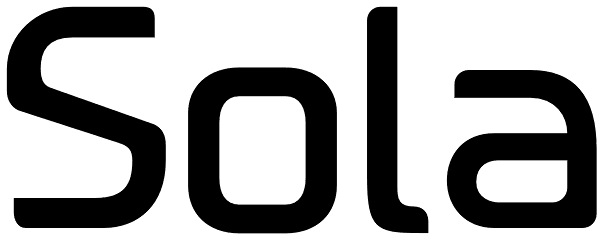
Sola
Sola is a simplistic, stylish, and modern san serif type font with the unique addition of rounded corners. When creating this font, Bank Gothic originally influenced me, however when I made the square shapes lower case the font didn't retain its...